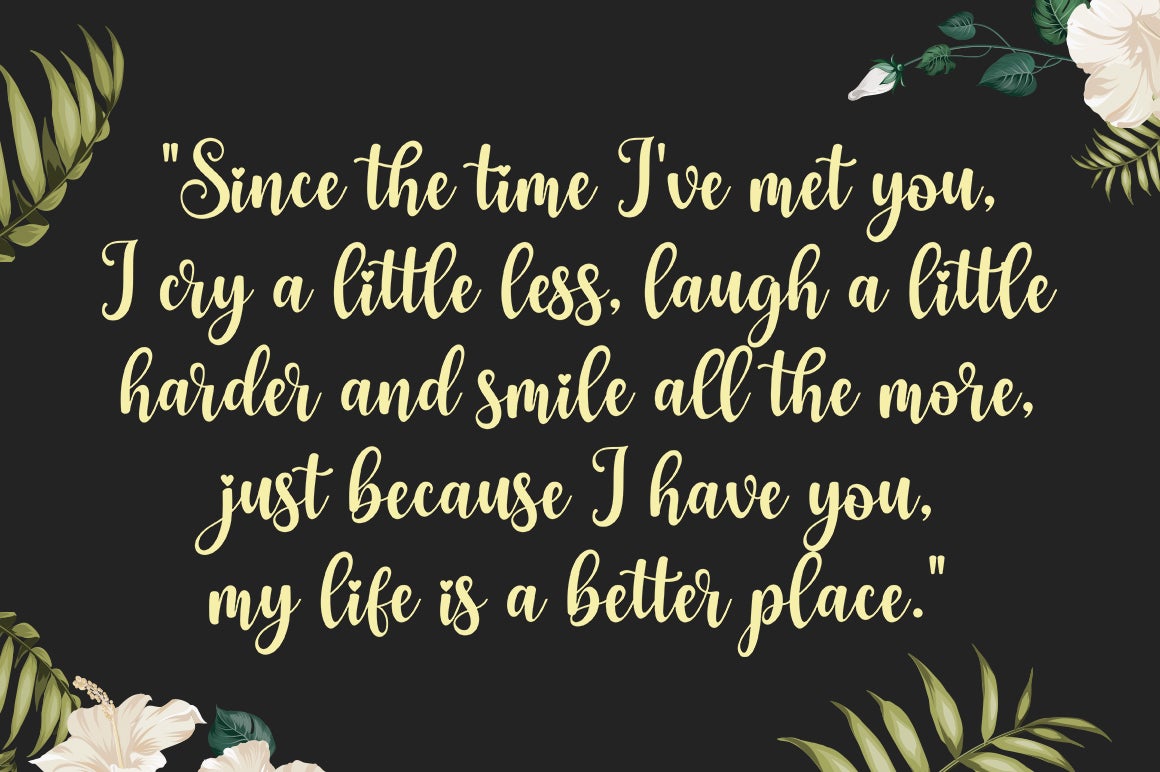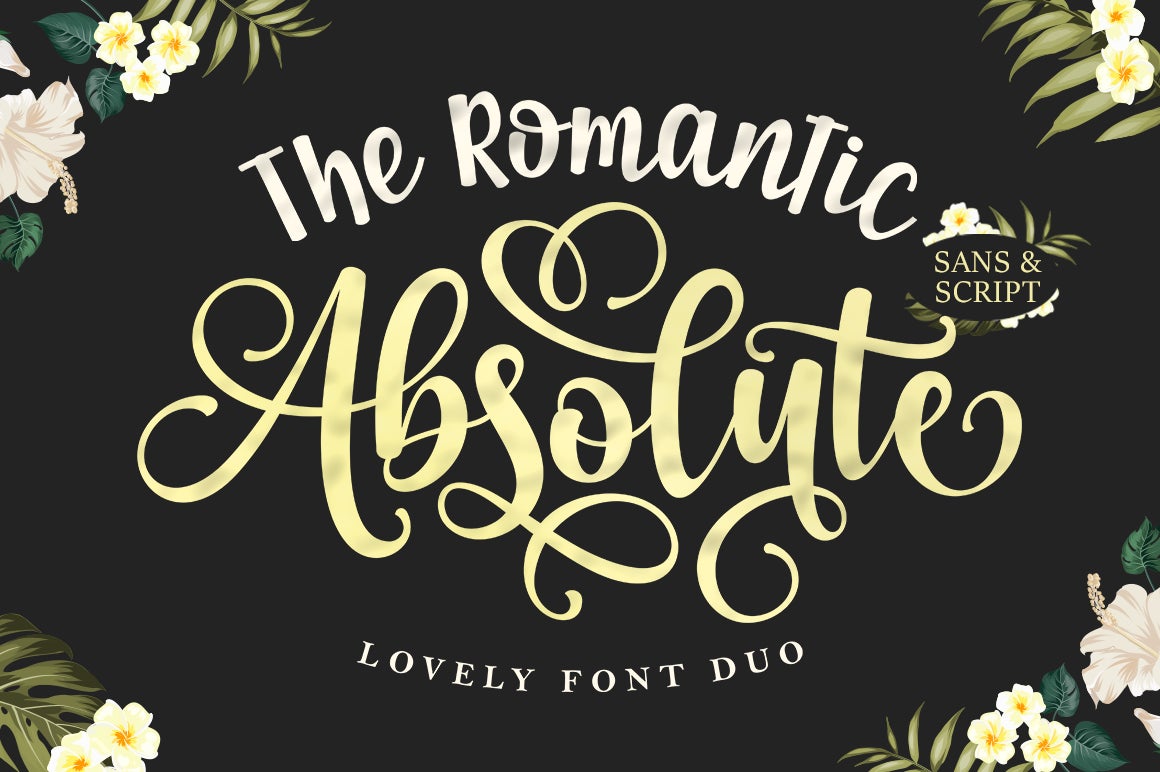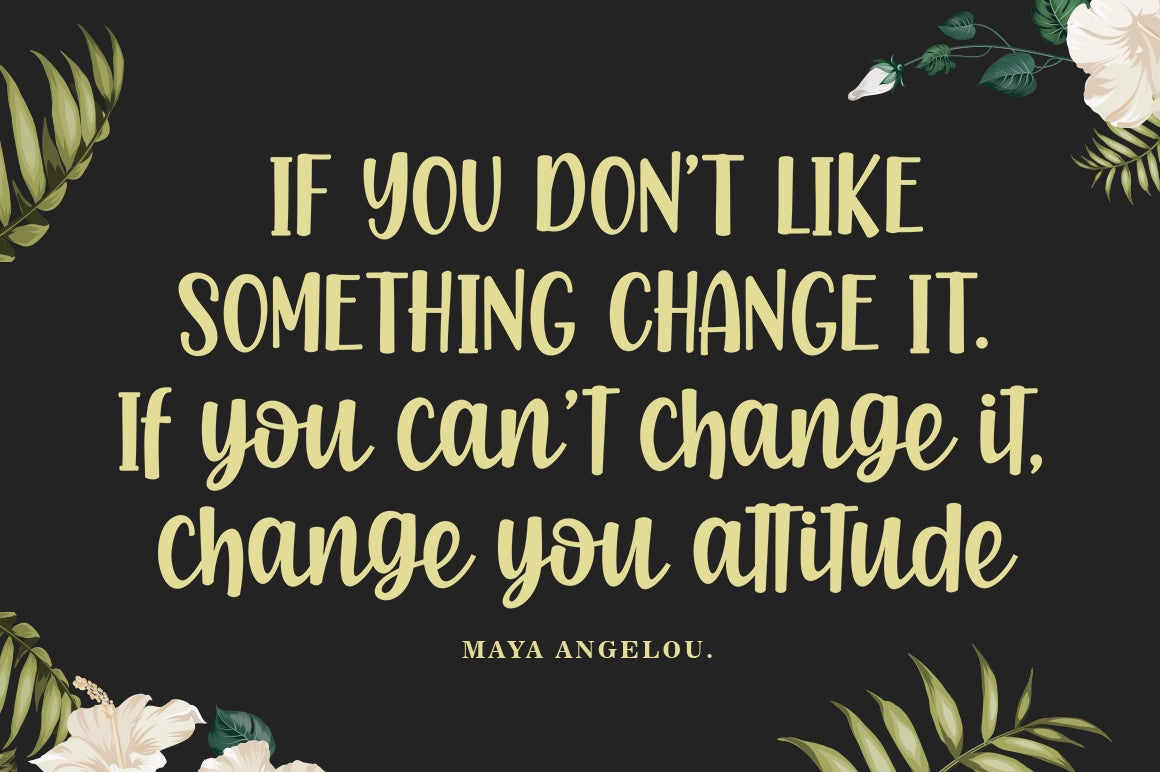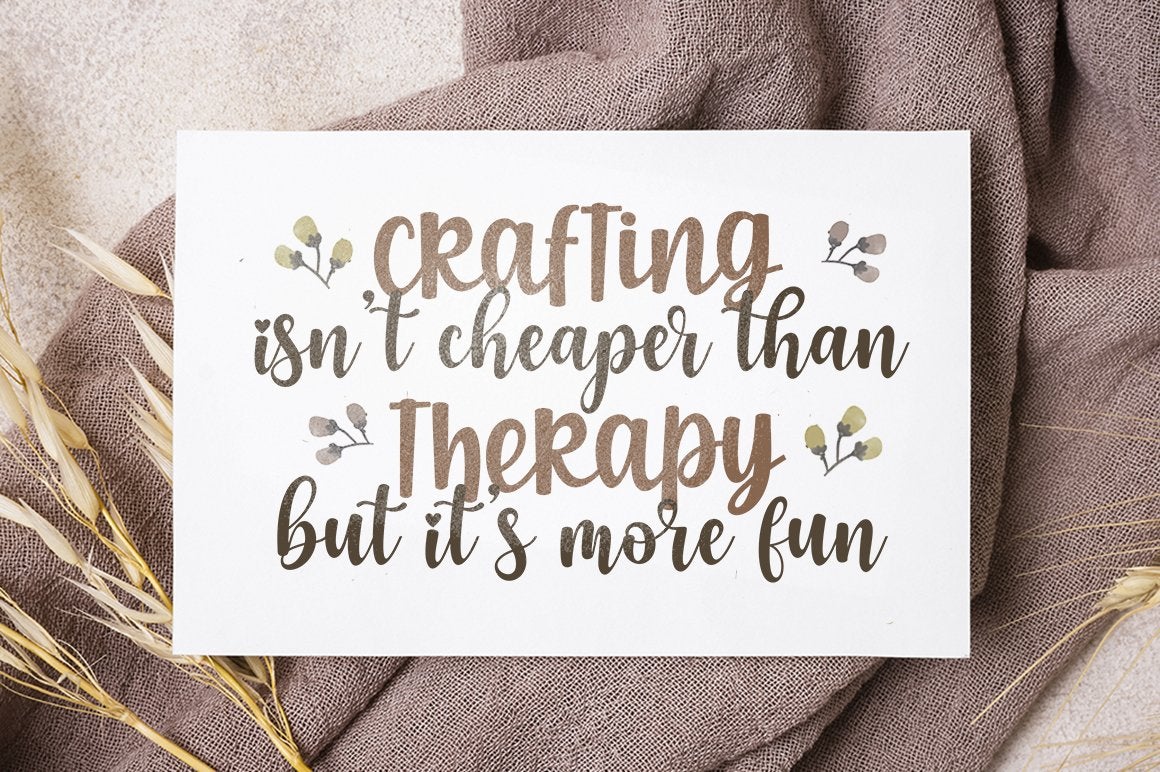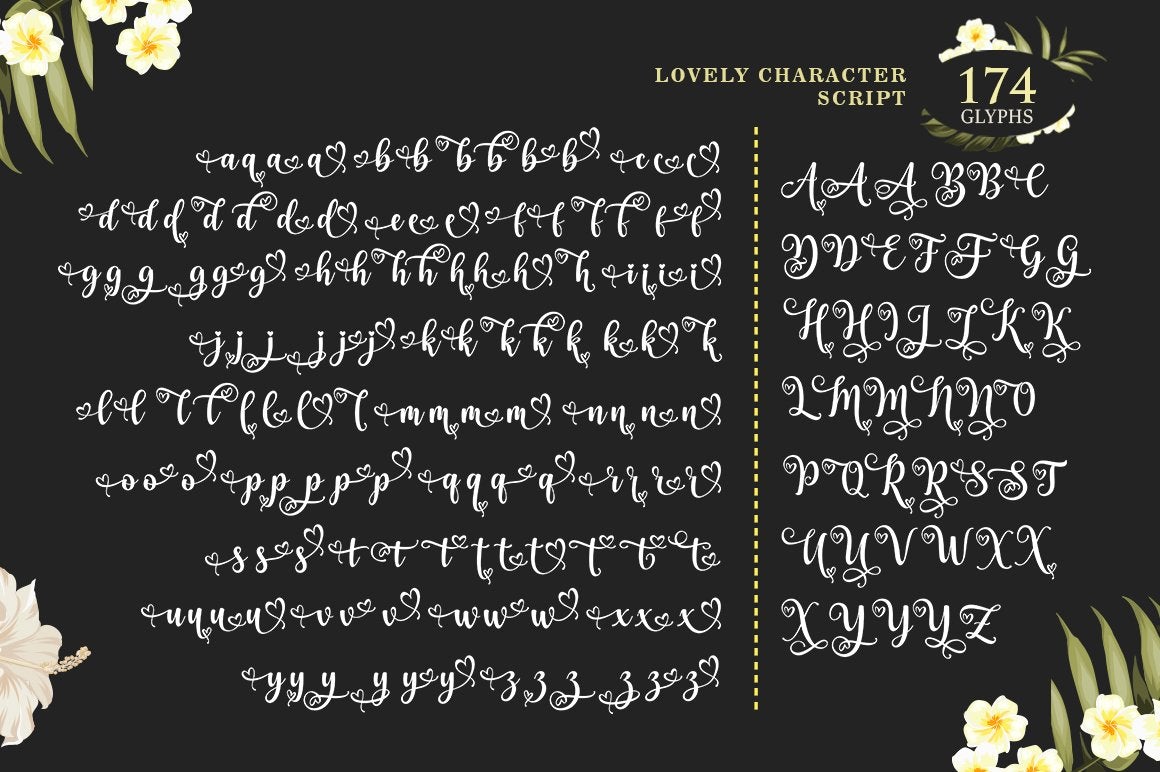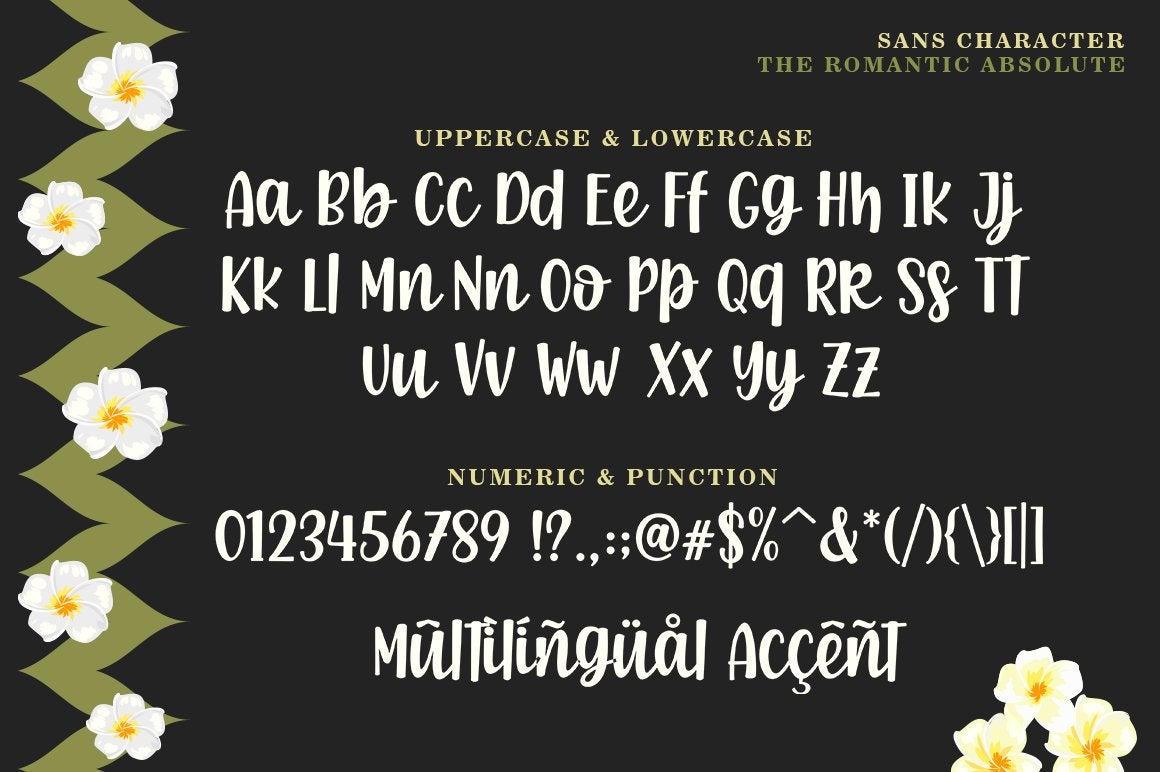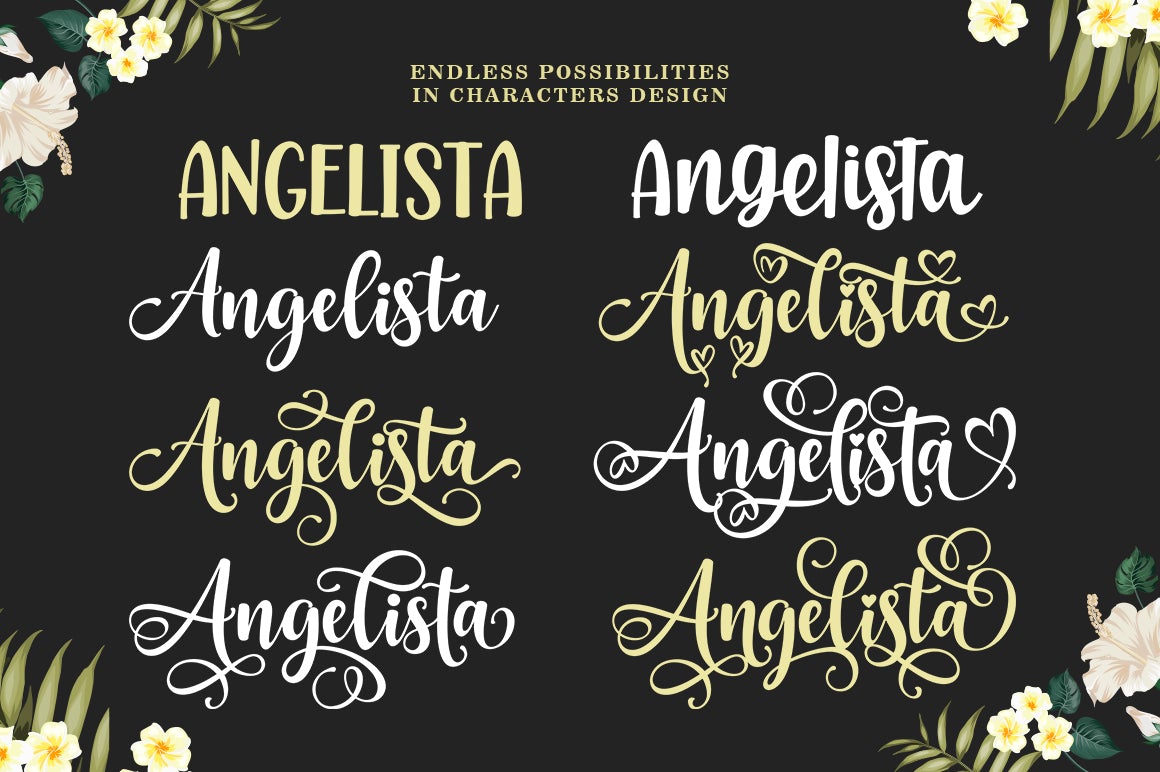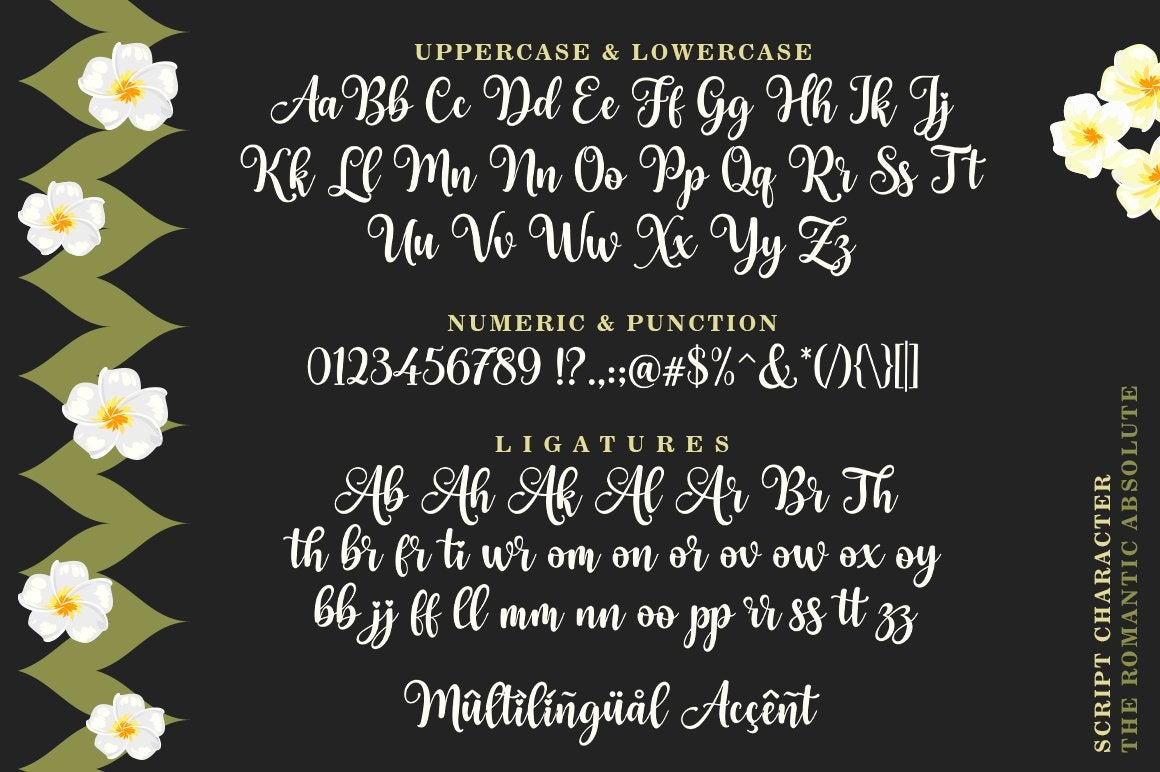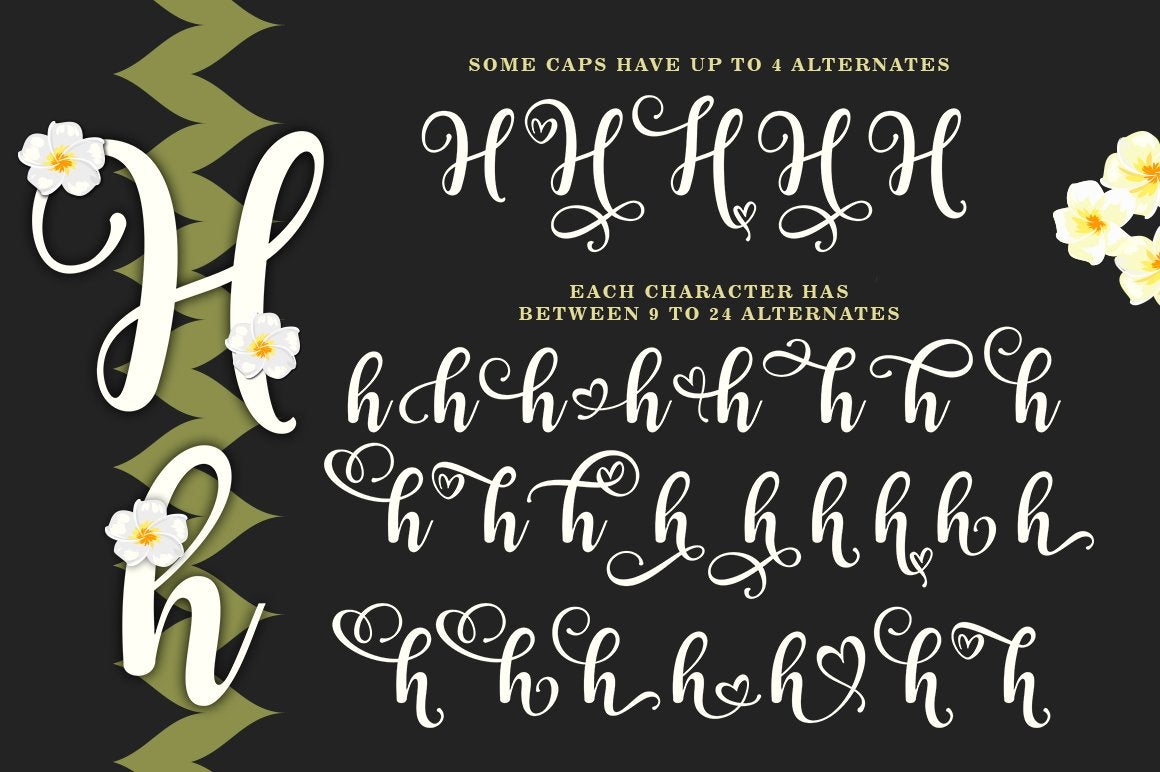
The Romantic Absolute Script
About The Romantic Absolute Script
The Romantic Absolute Script and Sans are a beautiful and romantic combination of two fonts that have a lot of lovely characters that are very interesting. This font has a beautiful and balanced character, making it suitable for a variety of purposes. such as posters, wedding invitations, logos, product packaging, branding, titles, signs, labels, mugs, book covers, quotes, and others. The Romantic Absolute Script Script features 700+ glyphs covering characters, alternatives and ligatures, including start and end letters, alternates, binders and multiple language support. The Romantic Absolute Sans features 190+ glyphs including binding characters and multiple language support. To access all OpenType Stylistic alternates, you need a program that supports OpenType features such as Adobe Illustrator, Adobe Photoshop, CorelDraw and Microsoft word. Files included: The Romantic Absolute Sans (otf, ttf) The Romantic Absolute Script (otf, ttf) This font is PUA encoded which means you can access all glyphs and swashes with ease! Happy designing!